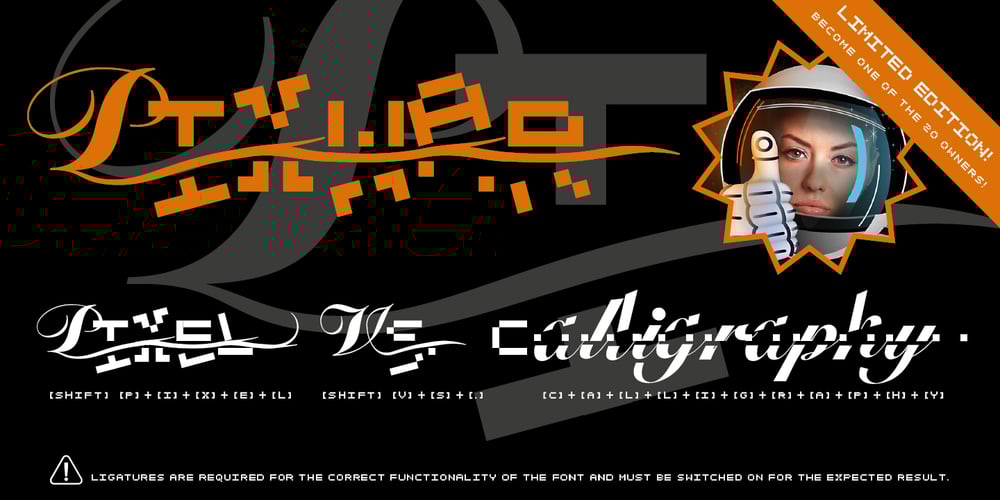
Pixwar Font Family was designed by Filippo Salmina and published by FSdesign-Salmina. Pixwar contains 1 styles and family package options. An epochal battle in form of font. Calligraphic characters and pixel fight against each other in this experimental font. Two historical epochs collude. You decide the destiny of the battle using the shift button. The font is based on OpenType technology. Ligatures are required for its correct functionality and must be switched on (both on professional and office applications). May the best win, with Pixwar.